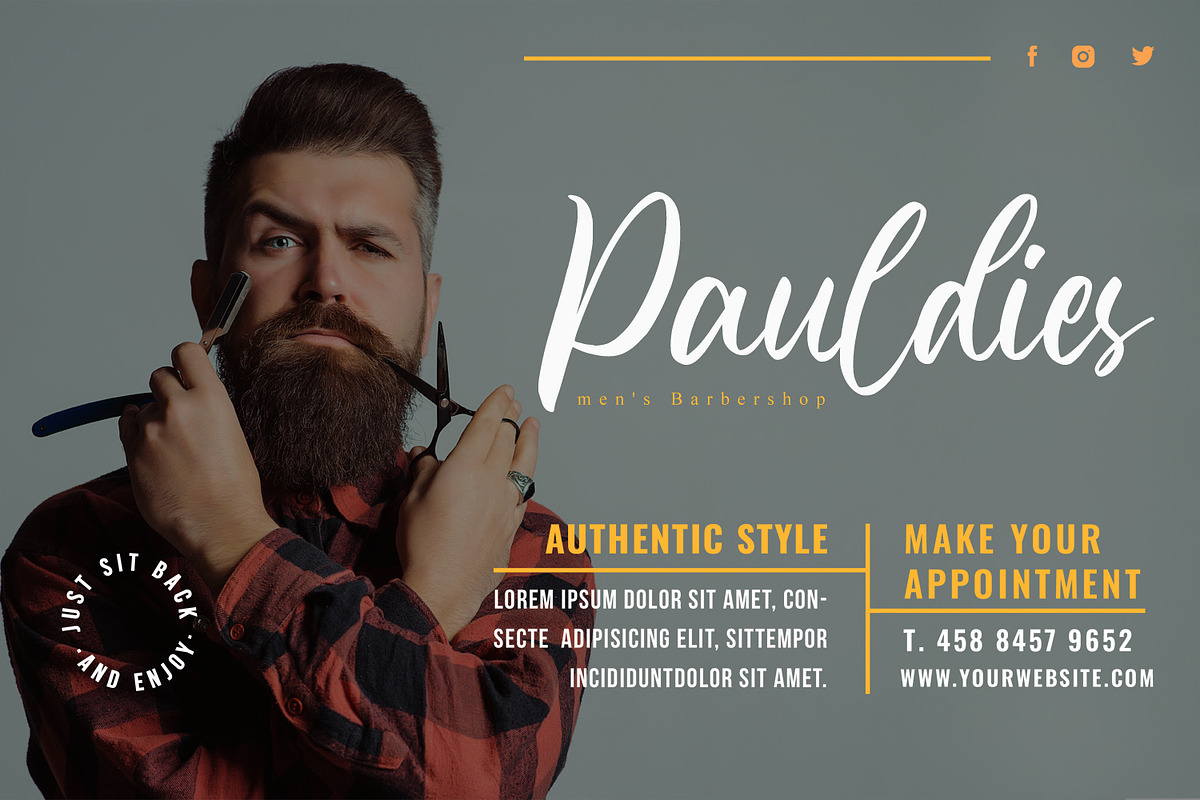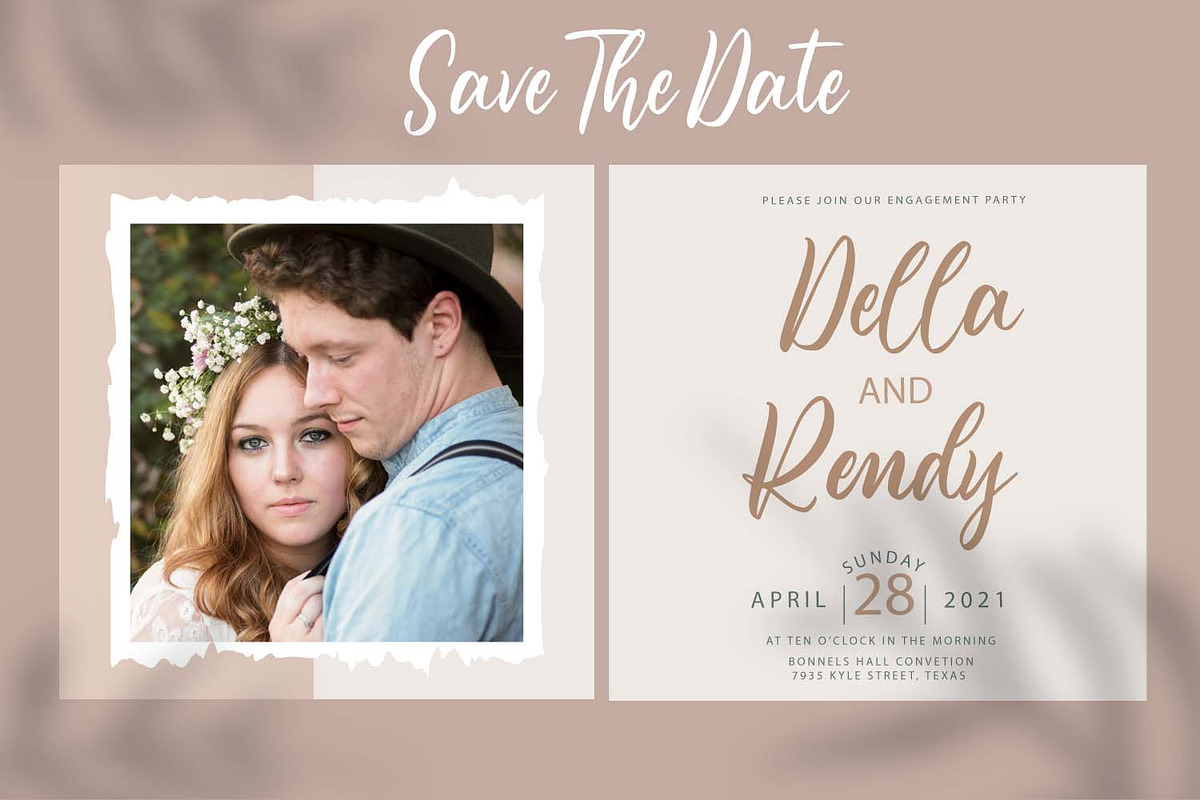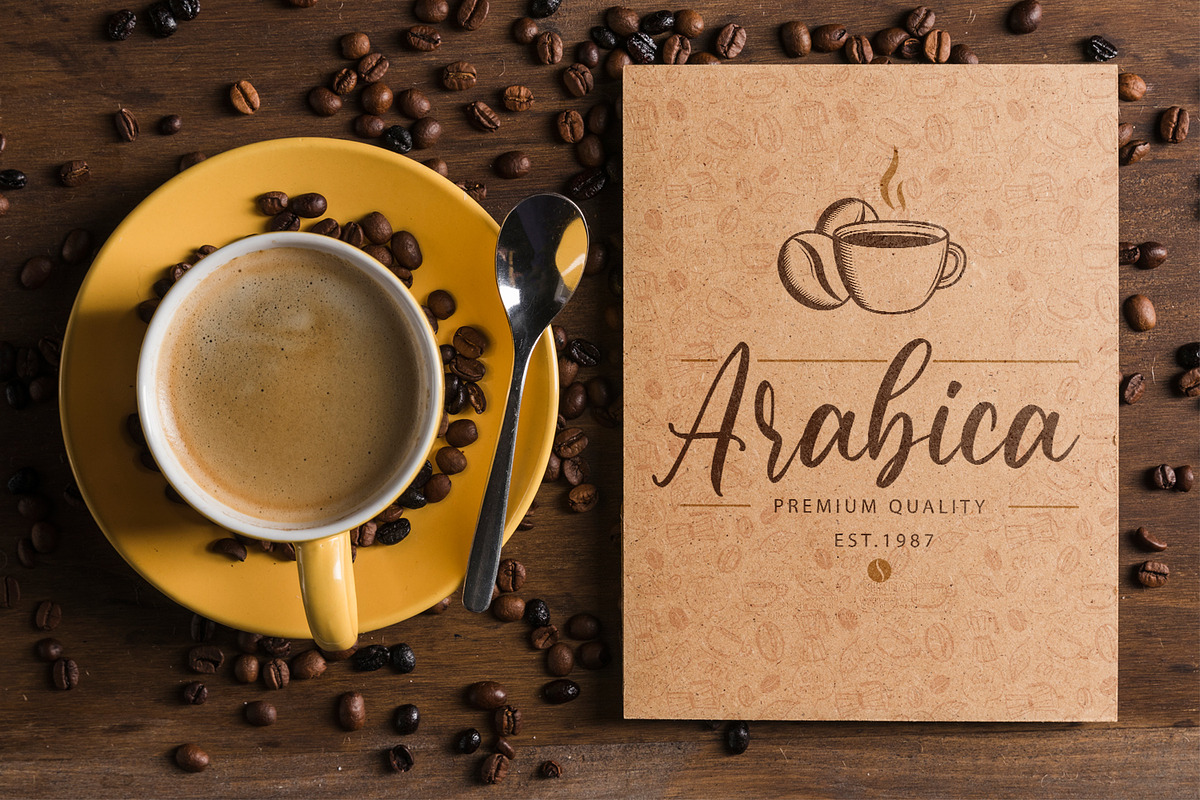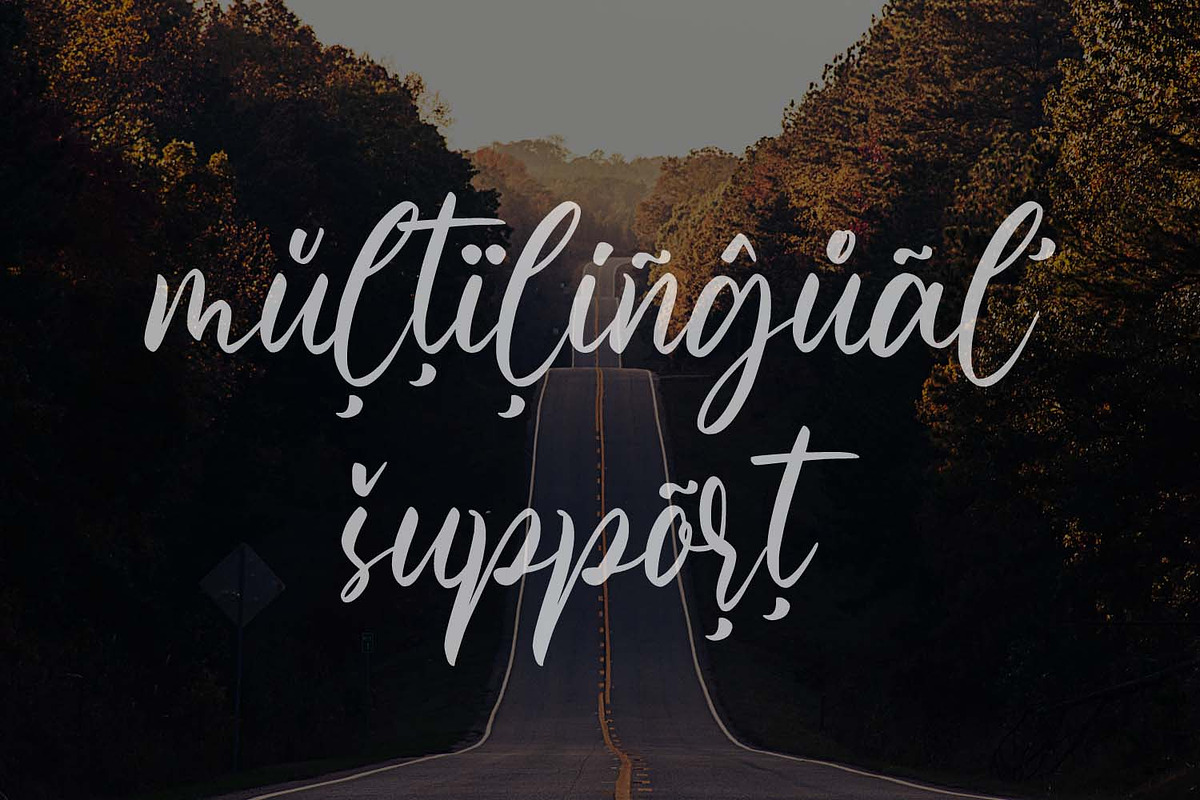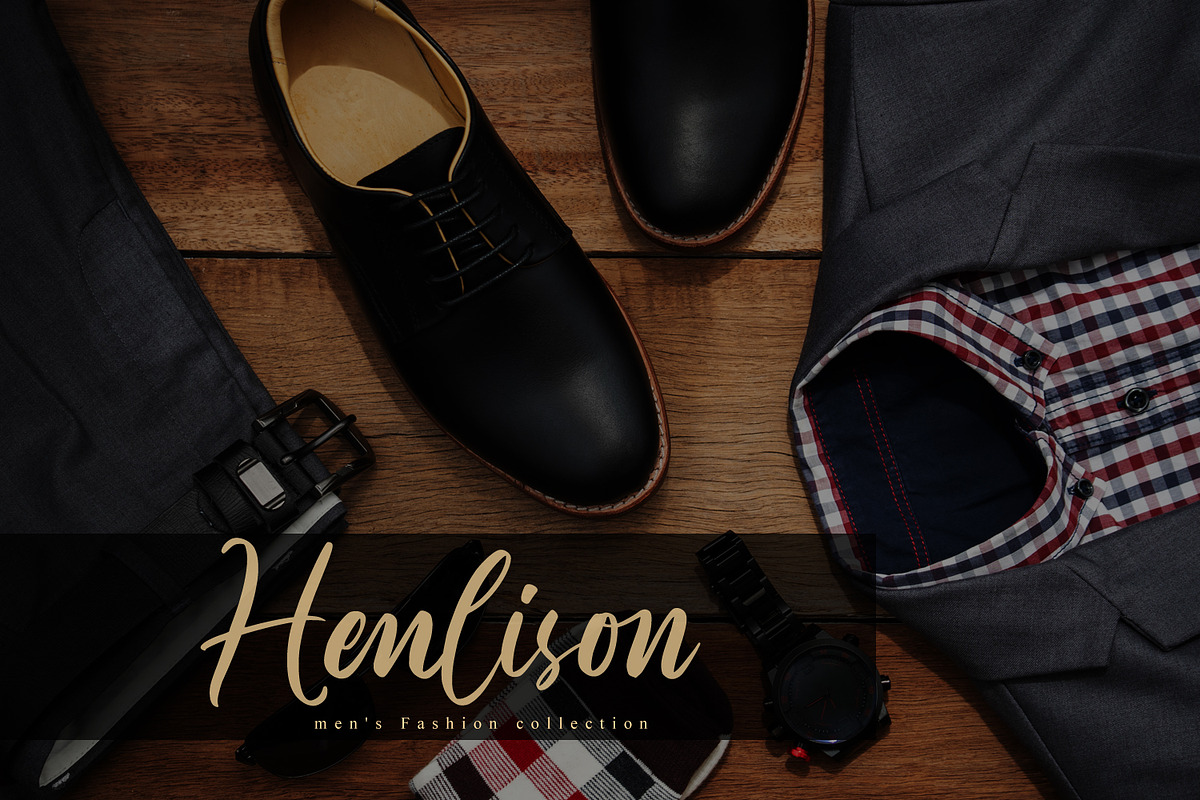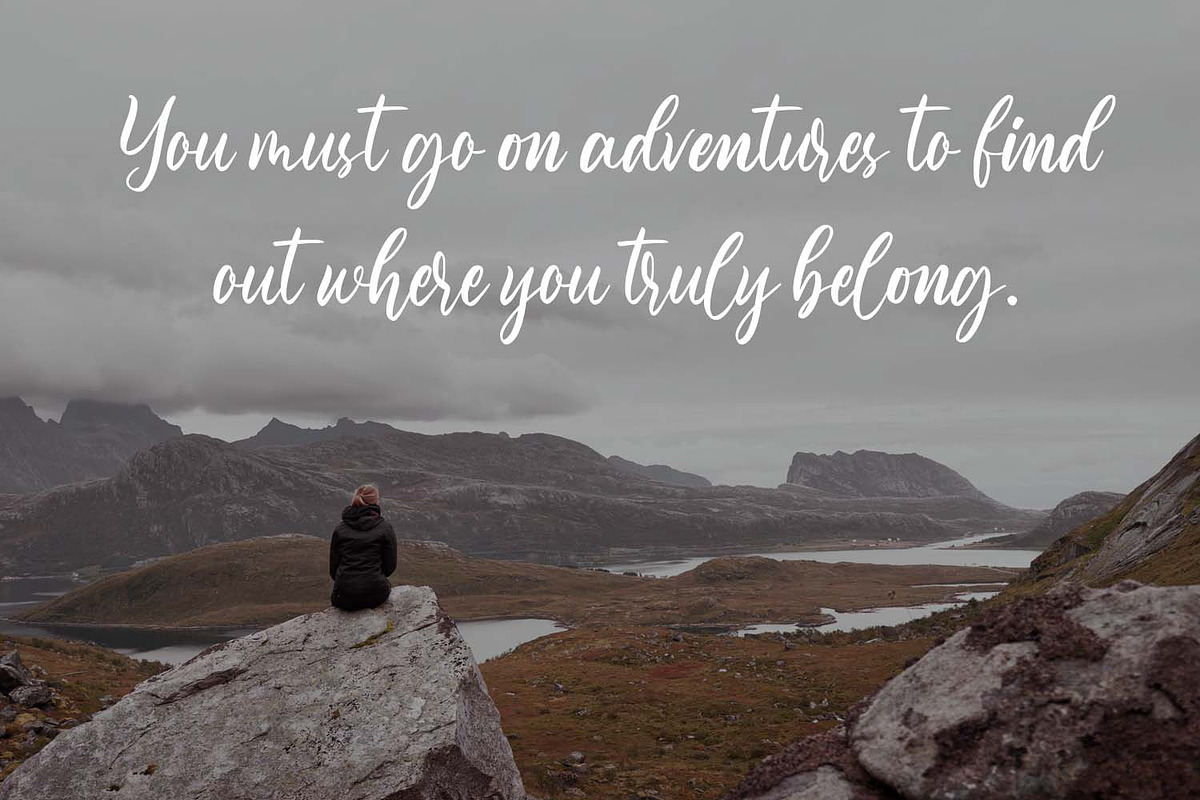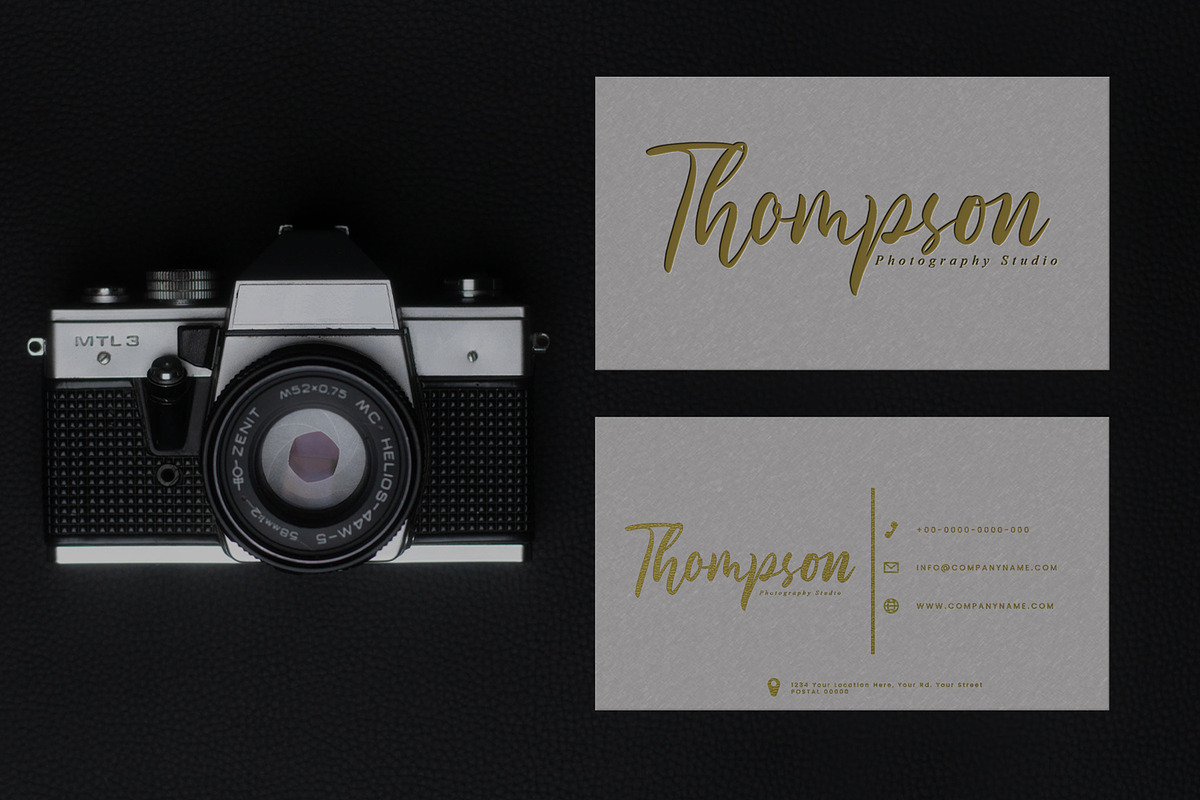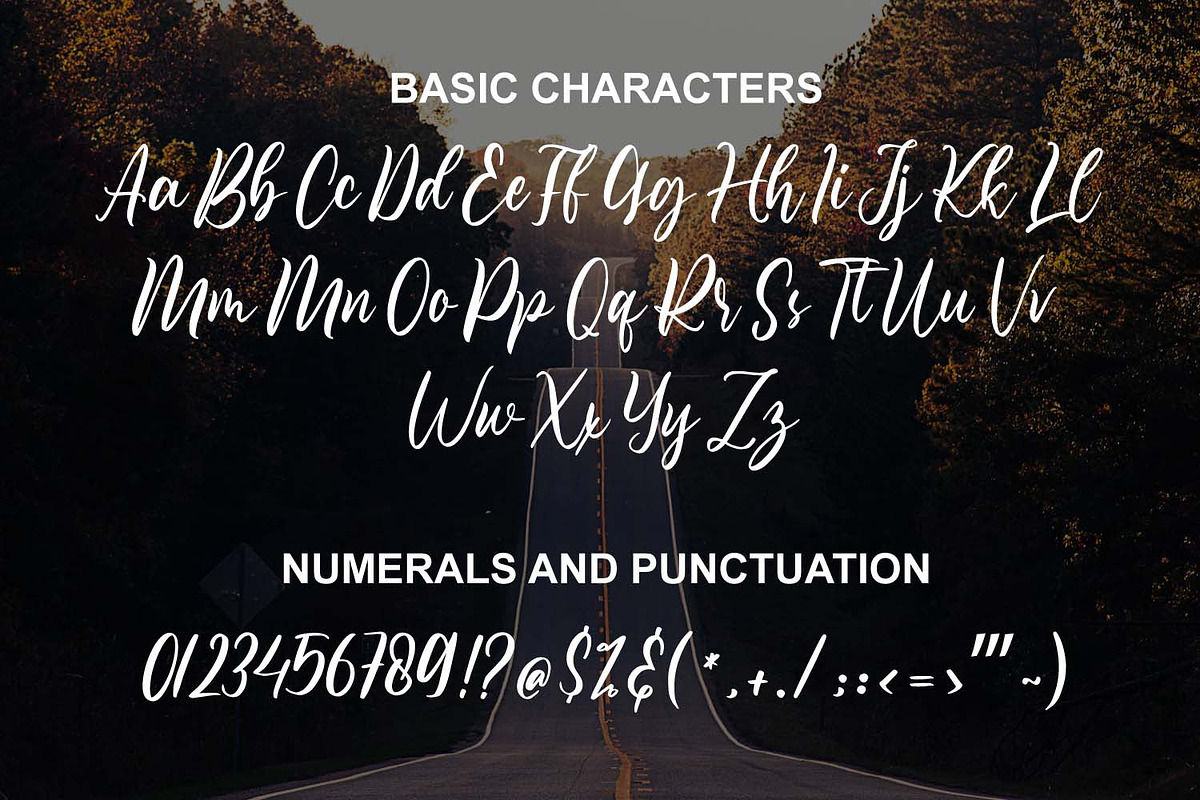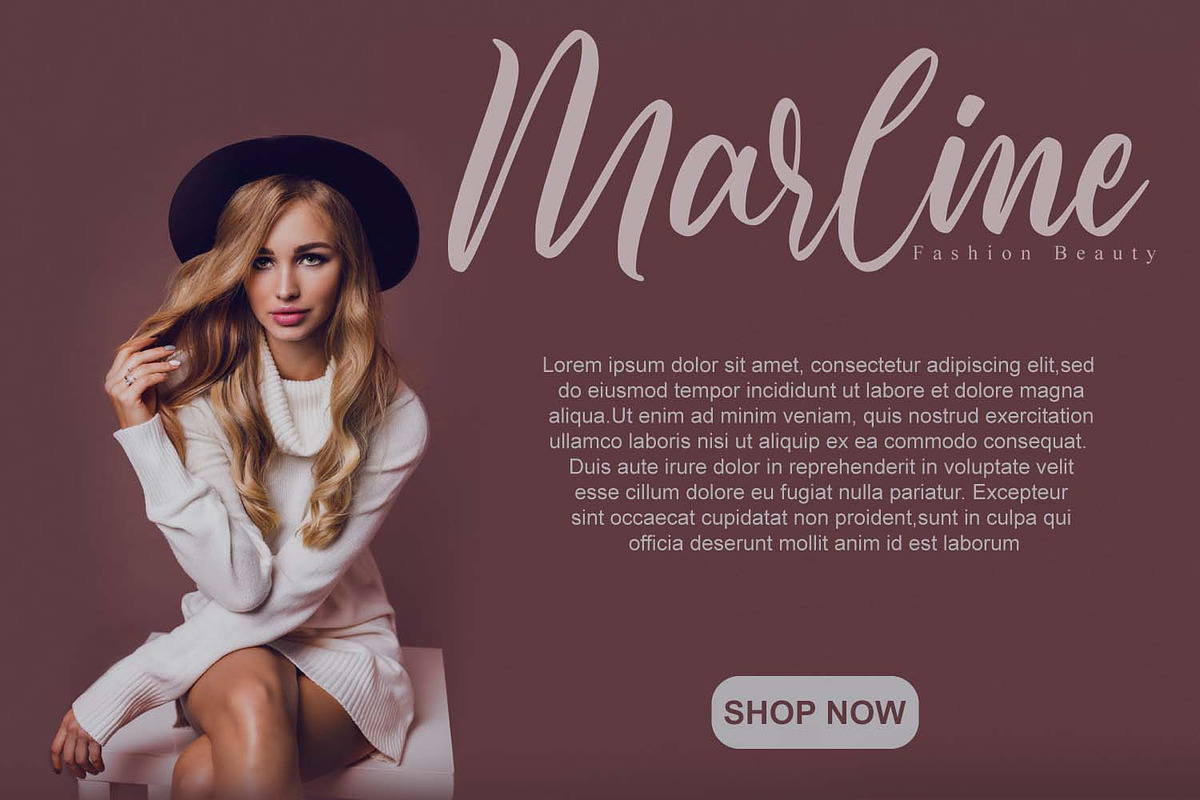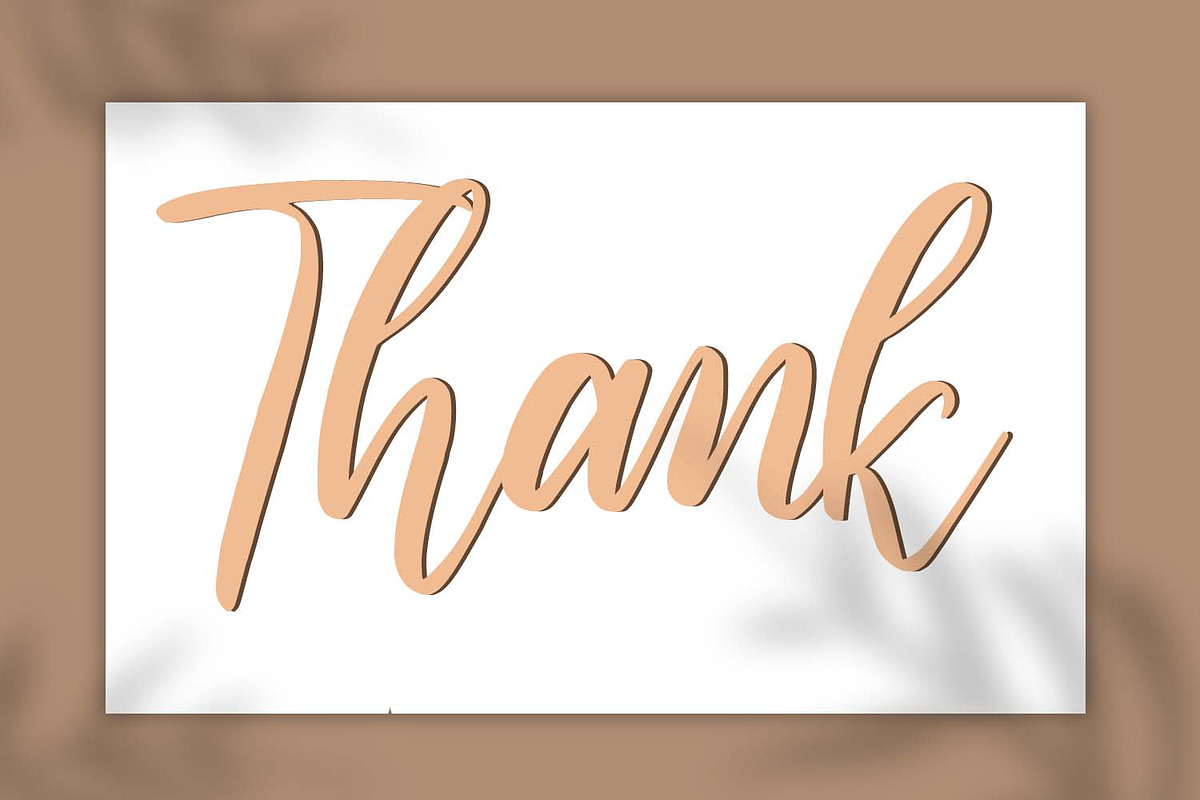
Destiney Modern Calligraphy
Destiney feels equally dazzling and adaptable. It looks beautiful on any design requiring a customized touch, such as wedding invitations, thank you cards, quotes and so much more.